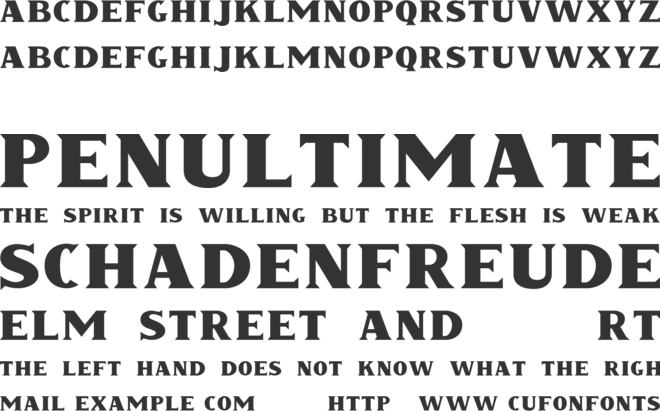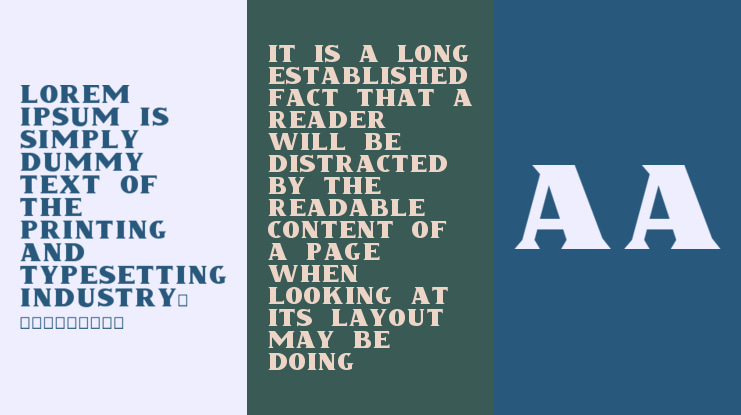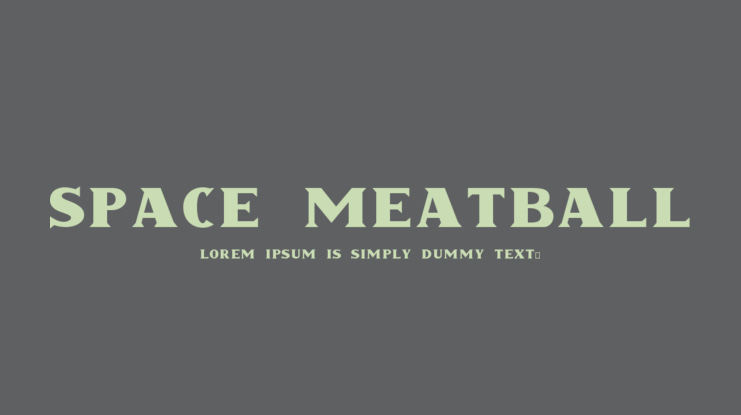
Space Meatball Font
A font based on the NASA (National Aeronautics and Space Administration) Meatball logo, designed by James Moradelli. Suitable for headline uses.